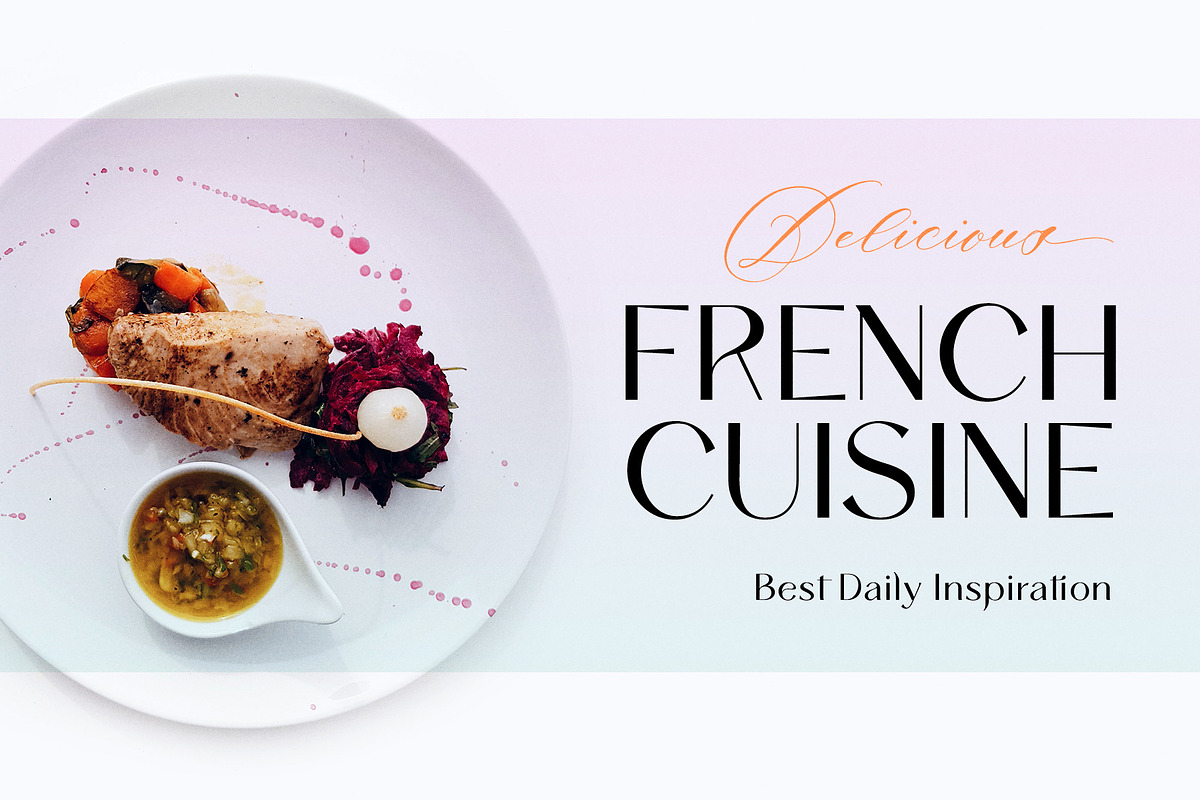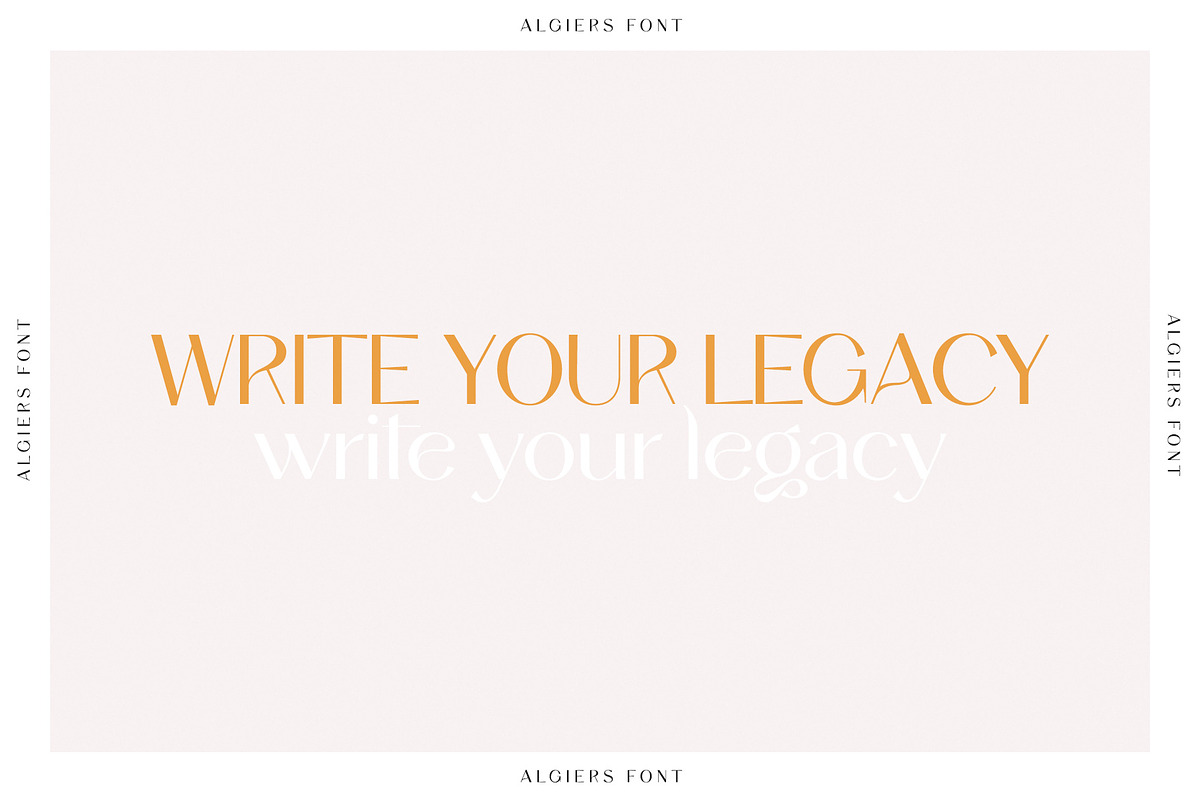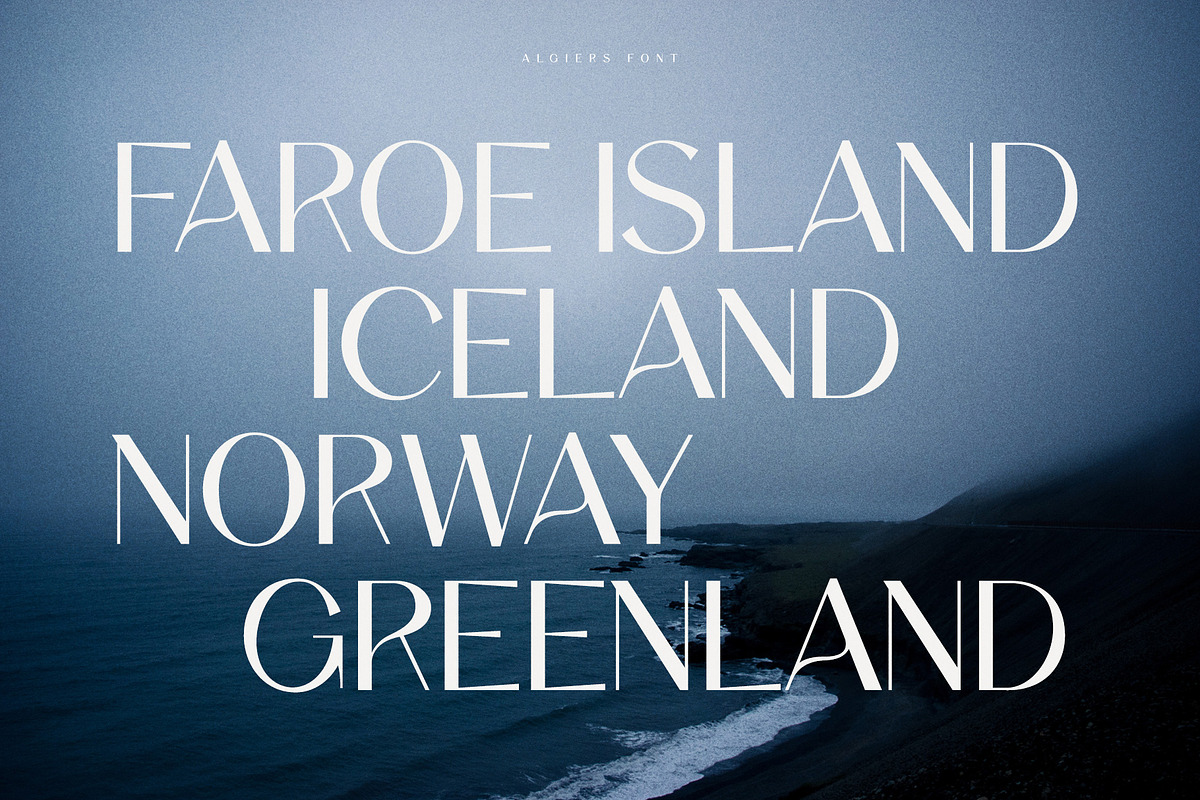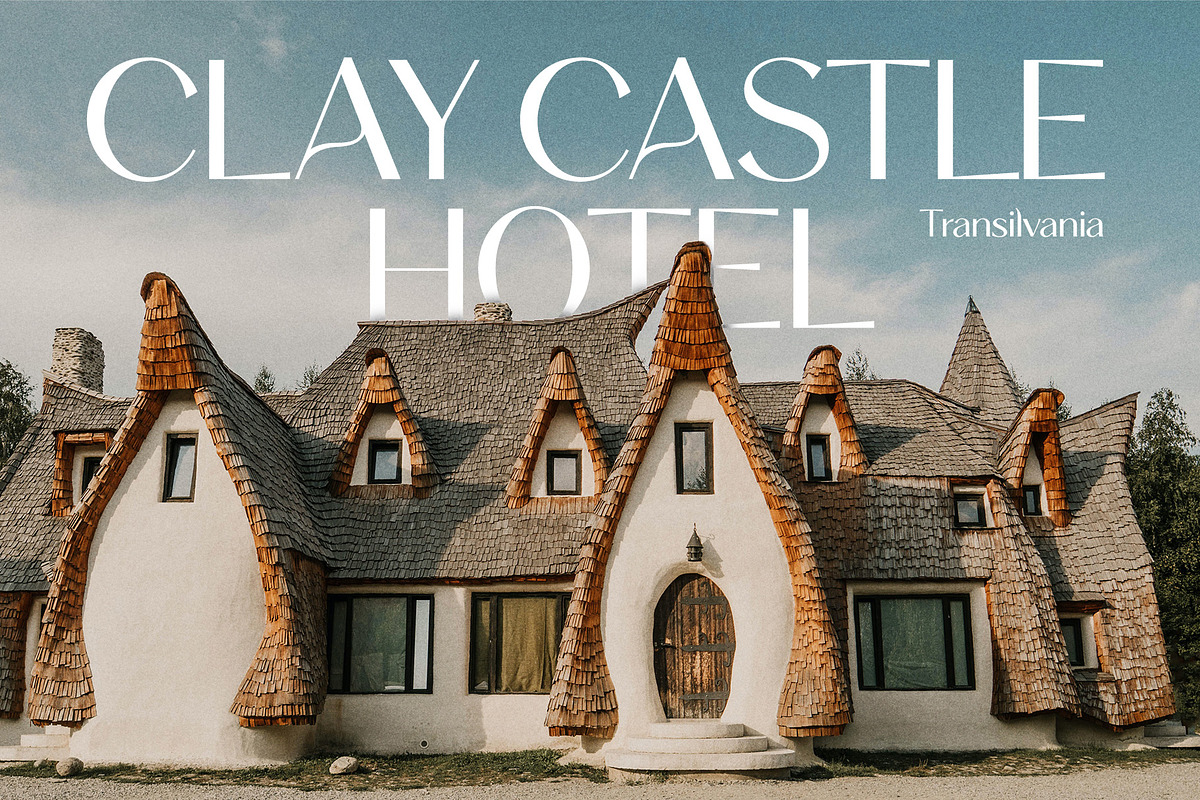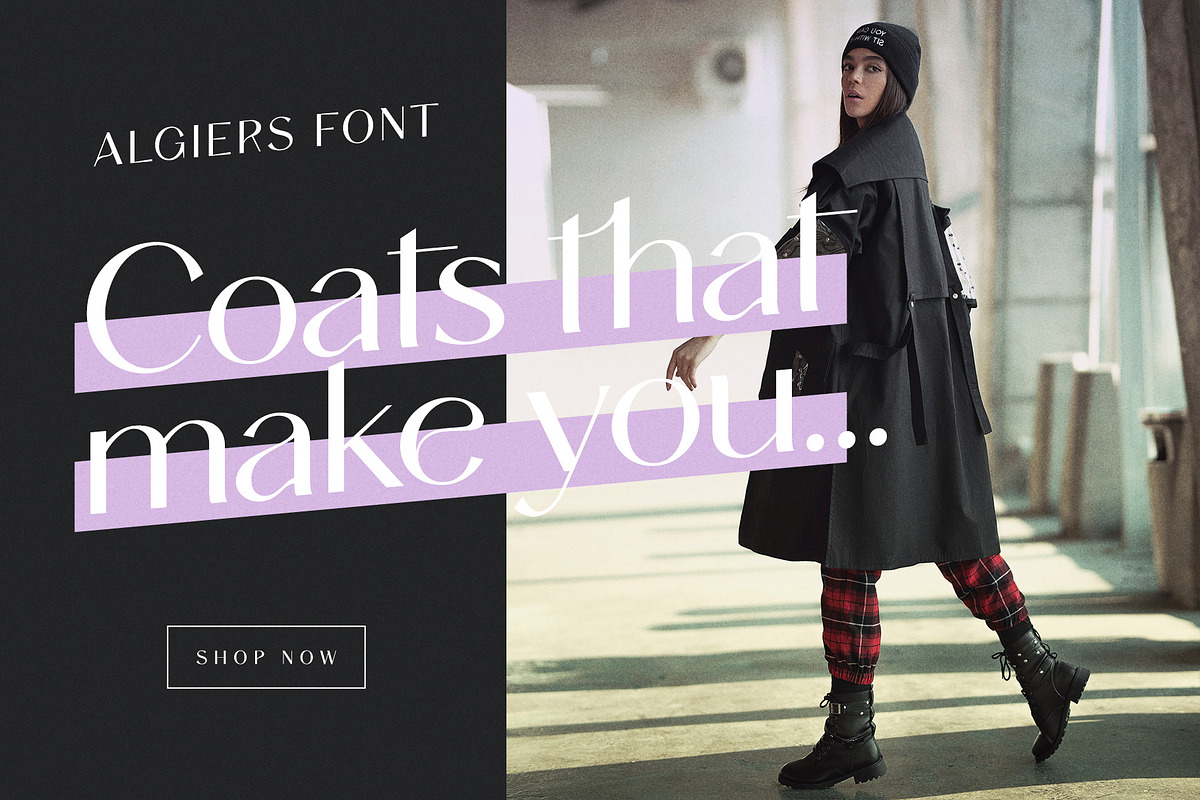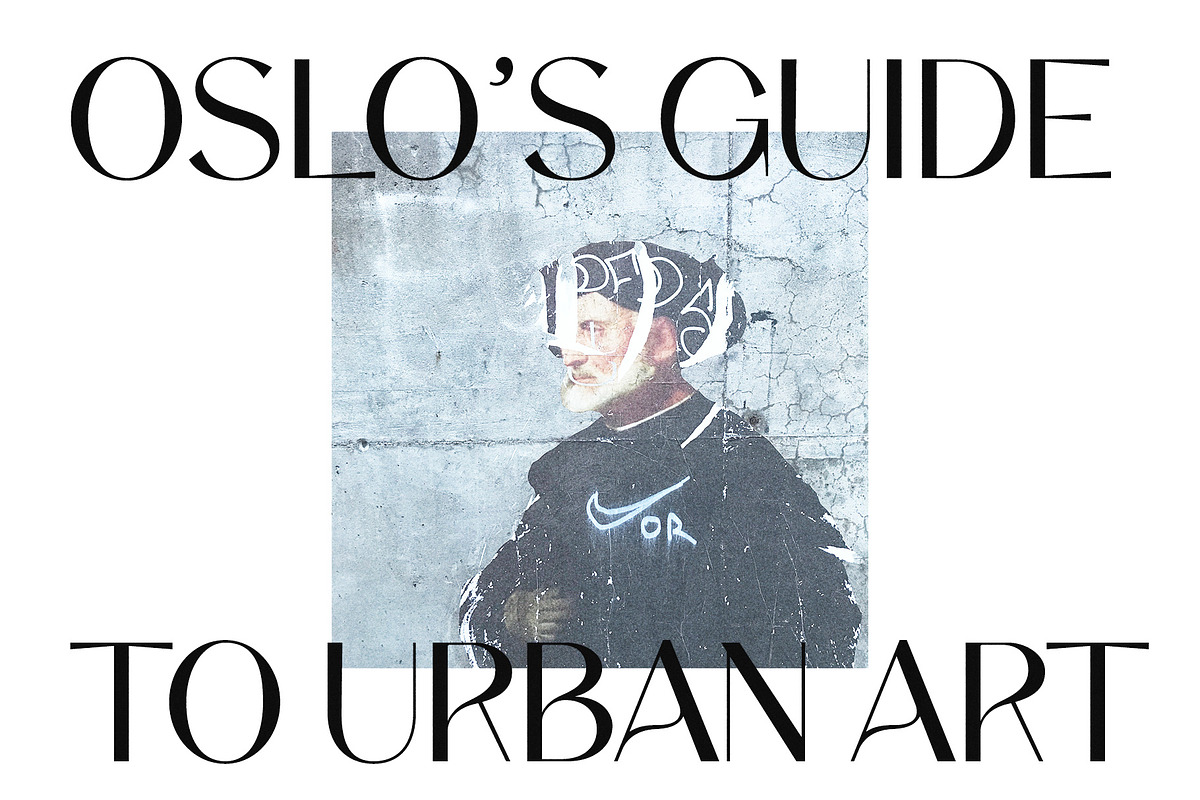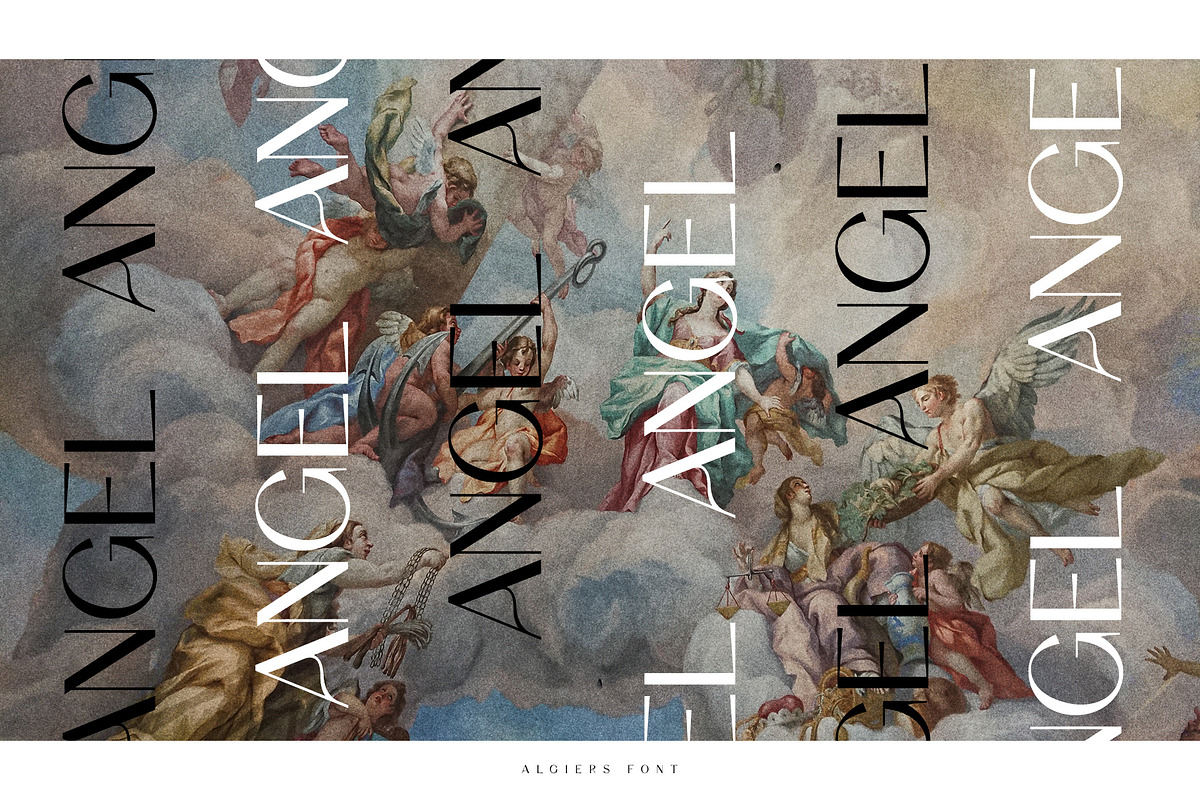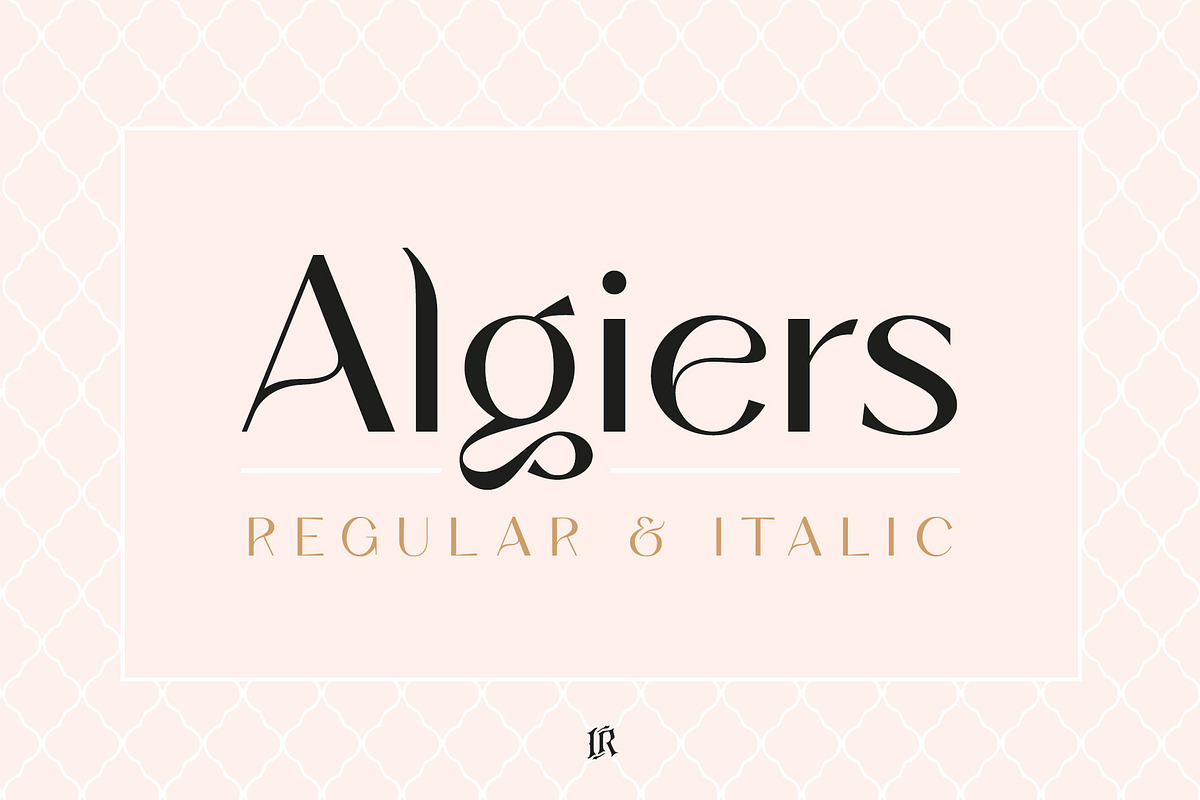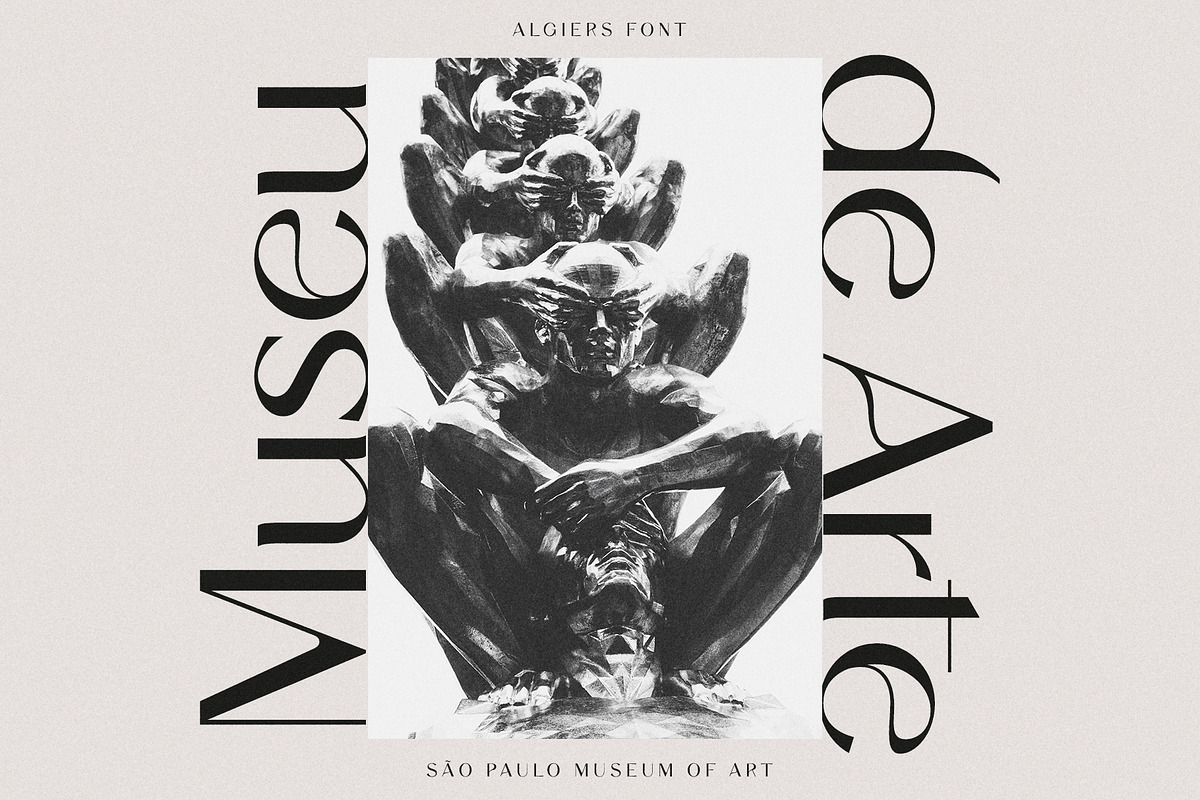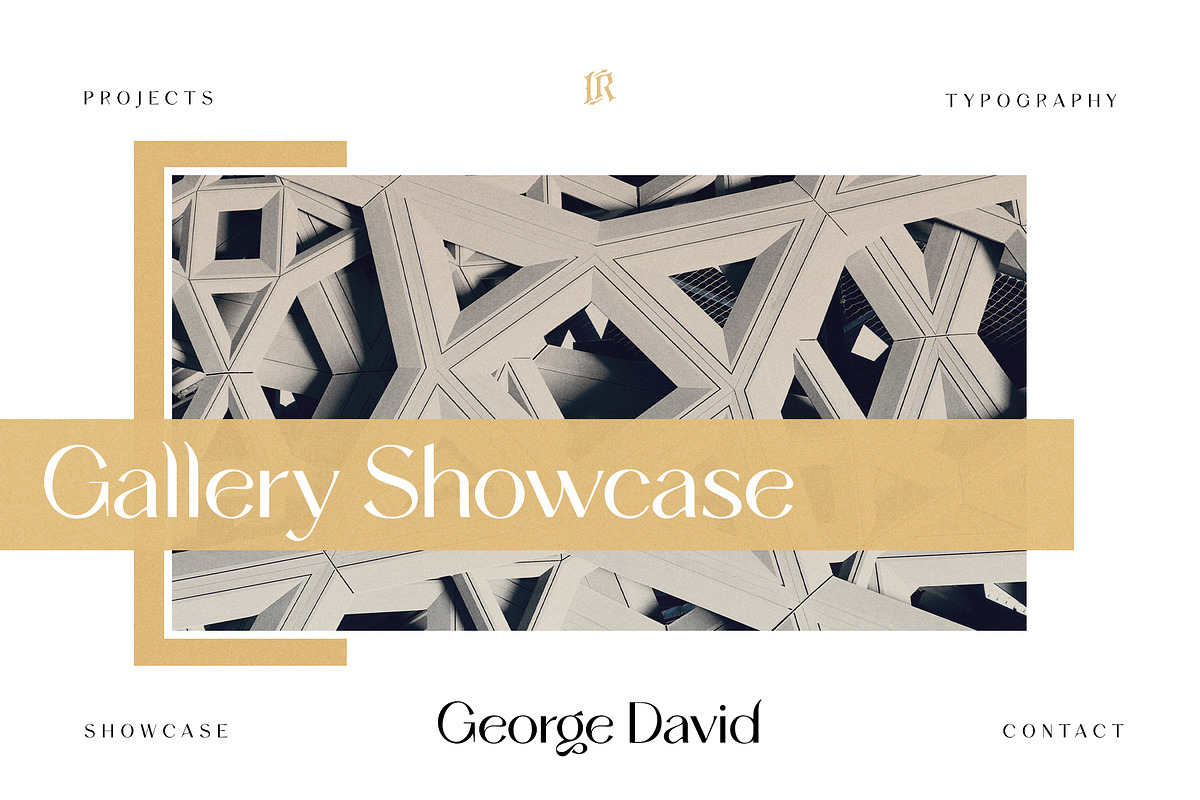
Algiers - A Modern Sans Serif
Algiers is a modern sans-serif font inspired by luxury fashion brands. It looks amazing at display sizes and is easily readable in text size. There are two versions of this font : REGULAR and ITALIC.
Algiers is a sans serif font made mainly for headlines, titles, and other short texts and is well-suited for advertising, fashion mood board, branding, logotypes, packaging, titles, editorial design and modern and social media.